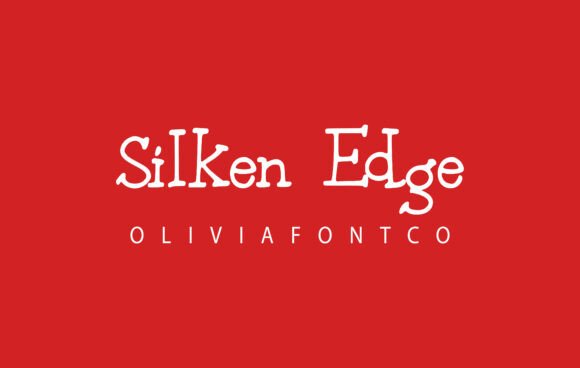
Silken Edge Font for Authentic Small Business Branding
Elevating Brand Identity with Silken Edge Handwritten Fonts
Silken Edge font is an authentic handwritten font with a romantic touch that serves as a powerful tool for small business owners seeking to distinguish their brand in a crowded marketplace. While categorized within the broader family of Slab Serif and decorative Fonts, this specific typeface offers a unique blend of structural reliability and organic warmth that is essential for modern boutique branding. For entrepreneurs managing everything from product development to social media marketing, selecting the right typography is not merely an aesthetic choice but a strategic business decision that influences customer perception and trust. Silken Edge provides that critical human element, transforming generic business materials into personalized experiences that resonate deeply with target audiences who value craftsmanship and authenticity.
When building a brand identity, consistency is key, and Silken Edge acts as a versatile anchor across various touchpoints. Its expertly designed letterforms carry a personality that feels established yet intimate, making it ideal for businesses that rely on personal connection, such as handmade goods sellers, independent bakeries, or wellness coaches. Unlike standard system fonts that can feel sterile, this typeface introduces a narrative quality to your visual assets. It suggests that there is a real person behind the business, which is invaluable for converting casual browsers into loyal customers. By integrating this authentic handwritten style into your core branding kit, you create a cohesive visual language that speaks directly to the emotions of your clientele while maintaining the professional polish necessary for commercial success.
Designing Product Packaging and Labels with Silken Edge
Silken Edge excels in packaging design and product labeling where the tactile nature of Slab Serif aesthetics meets the elegance of premium Fonts. For small business owners selling physical products like artisanal candles, organic skincare, or specialty foods, the label is often the first physical interaction a customer has with the brand. This font’s romantic touch adds a layer of perceived value, signaling to the buyer that the contents are crafted with care rather than mass-produced. The distinct character shapes remain legible even at smaller sizes typically found on jar labels or box tags, ensuring that essential product information is clear while the brand name stands out with sophisticated charm.
Practical application of Silken Edge on packaging requires thoughtful consideration of hierarchy and contrast. Use this typeface for the primary product name or the brand logo to capture attention, but pair it with a clean, simple sans serif for regulatory text, ingredients, or instructions to ensure maximum readability. This balance prevents the packaging from looking cluttered while maximizing the emotional impact of the display font. Whether you are printing on textured kraft paper, glossy stickers, or matte cardstock, the weight and flow of Silken Edge adapt beautifully, providing that high-end boutique look without requiring expensive custom lettering services. Testing print proofs is always recommended to ensure the intricate details of the handwritten strokes reproduce crisply on your specific packaging materials.
Creating Memorable Customer Experience Materials Using Silken Edge
Beyond the product itself, Silken Edge font is an authentic handwritten font with a romantic touch that transforms transactional items into memorable brand moments through thoughtful stationery and insert design. Small businesses thrive on repeat customers and word-of-mouth referrals, both of which are driven by exceptional unboxing experiences. Utilizing this typeface on thank-you cards, return policy inserts, business cards, and shipping labels reinforces your brand’s personality at every stage of the customer journey. A handwritten-style font on a "Thank You for Your Order" card feels significantly more personal and appreciative than standard block text, encouraging customers to share their purchase on social media and tag your business.
Silken Edge for Social Media Graphics and Digital Marketing
In the digital realm, Silken Edge and other expressive Fonts help small businesses stop the scroll on platforms like Instagram, Pinterest, and Facebook where visual appeal drives engagement. While Slab Serif styles provide structure, the fluid nature of this handwritten typeface creates dynamic contrast against solid backgrounds or lifestyle photography. For content creators and online sellers, using Silken Edge in headlines, quote graphics, and promotional banners establishes instant brand recognition. When followers consistently see this distinct typography in your feed, they begin to associate the visual style with your specific niche, whether that is wedding planning, vintage resale, or holistic health.
Readability on mobile devices is paramount when using decorative fonts for digital marketing. Silken Edge works best as a headline or accent element rather than body copy, ensuring that your message is accessible to all users, including those with visual impairments. Pair it with a highly legible web-safe font for captions and detailed descriptions to maintain accessibility standards while still showcasing your brand’s unique flair. This typeface is particularly effective for highlighting limited-time offers, new product launches, or inspirational quotes because its organic forms draw the eye naturally. By creating templates that incorporate Silken Edge, you can streamline your content creation process, ensuring that every post looks professionally designed and aligned with your overall marketing strategy.
Pairing Silken Edge with Complementary Typefaces for Professional Layouts
To maximize the versatility of Silken Edge font is an authentic handwritten font with a romantic touch, small business owners must master the art of font pairing with supportive Slab Serif or sans serif Fonts. A common mistake in DIY branding is using too many decorative elements, which can dilute the professional appearance of your materials. Silken Edge should be treated as the star performer—the display typeface used for logos, major headings, and signature accents. Supporting text, such as website navigation, product descriptions, and email newsletters, requires a neutral partner that provides breathing room and enhances the legibility of the primary font.
1. Select a Neutral Partner: Choose a geometric sans serif or a classic slab serif that shares similar x-height proportions but lacks the ornate details of Silken Edge.
2. Establish Hierarchy: Define strict rules for where each font appears; for example, Silken Edge for H1 and H2 headers, and the supporting font for all body paragraphs and UI elements.
3. Check Contrast: Ensure there is sufficient visual difference between the two typefaces so they complement rather than compete with each other.